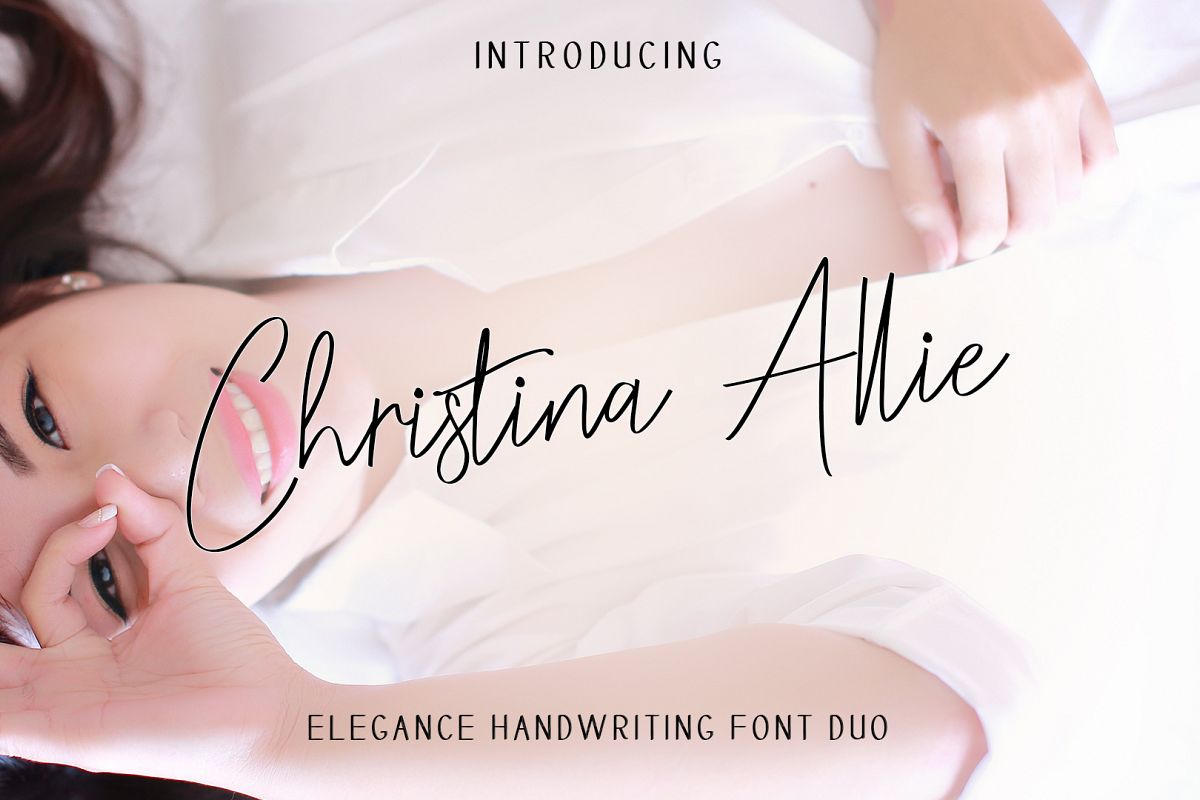
Christina Allie
Introducing
Christina Allie script
Christina Allie script a new fresh & modern script with a handmade calligraphy style, decorative characters and a dancing baseline! So beautiful on invitation like greeting cards, branding materials, business cards, quotes, posters, and more!!
Christina Allie script come with 300+ glyphs and with 70+ Ligatures. The alternative characters were divided into several Open Type features such as Swash, Stylistic Sets, Stylistic Alternates, Contextual Alternates. The Open Type features can be accessed by using Open Type savvy programs such as Adobe Illustrator, Adobe InDesign, Adobe Photoshop Corel Draw X version, And Microsoft Word. And this Font has given PUA unicode (specially coded fonts). so that all the alternate characters can easily be accessed in full by a craftsman or designer.
Christina Allie script :